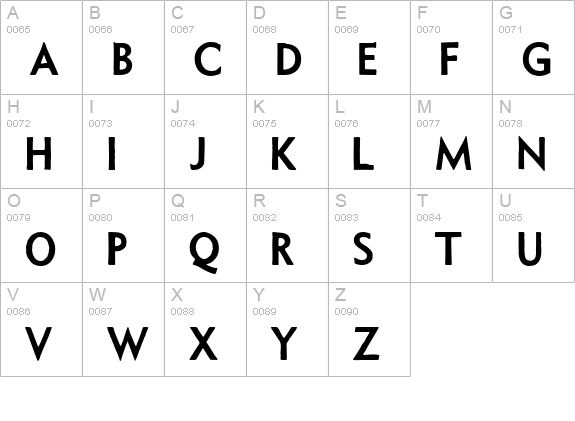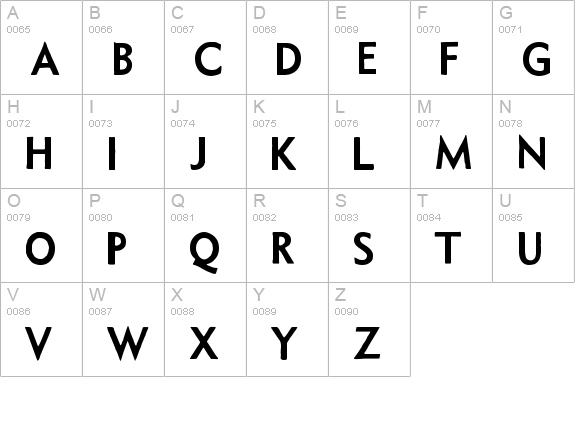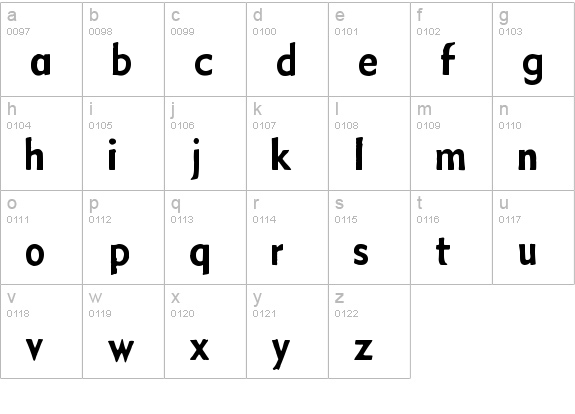
Metro Medium HPLHS is a balanced, medium-weight variant in the Metro typeface family \xE2\x80\x94 well suited to sub-headlines, navigation, and balanced editorial work.
Metro Medium HPLHS is a versatile and modern sans-serif font that exudes elegance and sophistication. Its clean lines and balanced proportions make it perfect for a wide range of design projects, from branding to editorial design. The medium weight of the font strikes the perfect balance between readability and impact, making it ideal for both headlines and body text. What sets Metro Medium HPLHS apart is not only its aesthetic appeal, but also its versatility. Whether you're designing a sleek website, a stylish magazine layout, or a professional presentation, this font will elevate your work to the next level. Best of all, Metro Medium HPLHS is available for free download at FontsMarket.com. So why wait? Add this exceptional font to your collection today and take your designs to new heights.